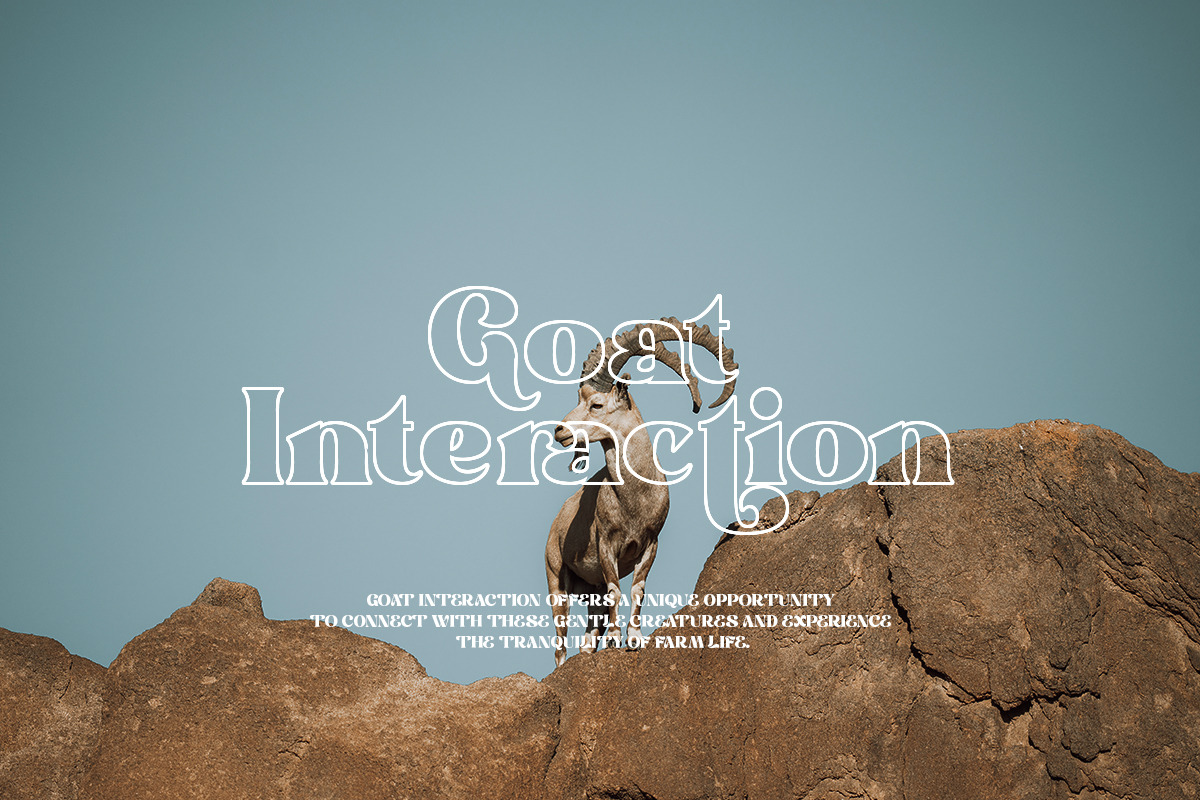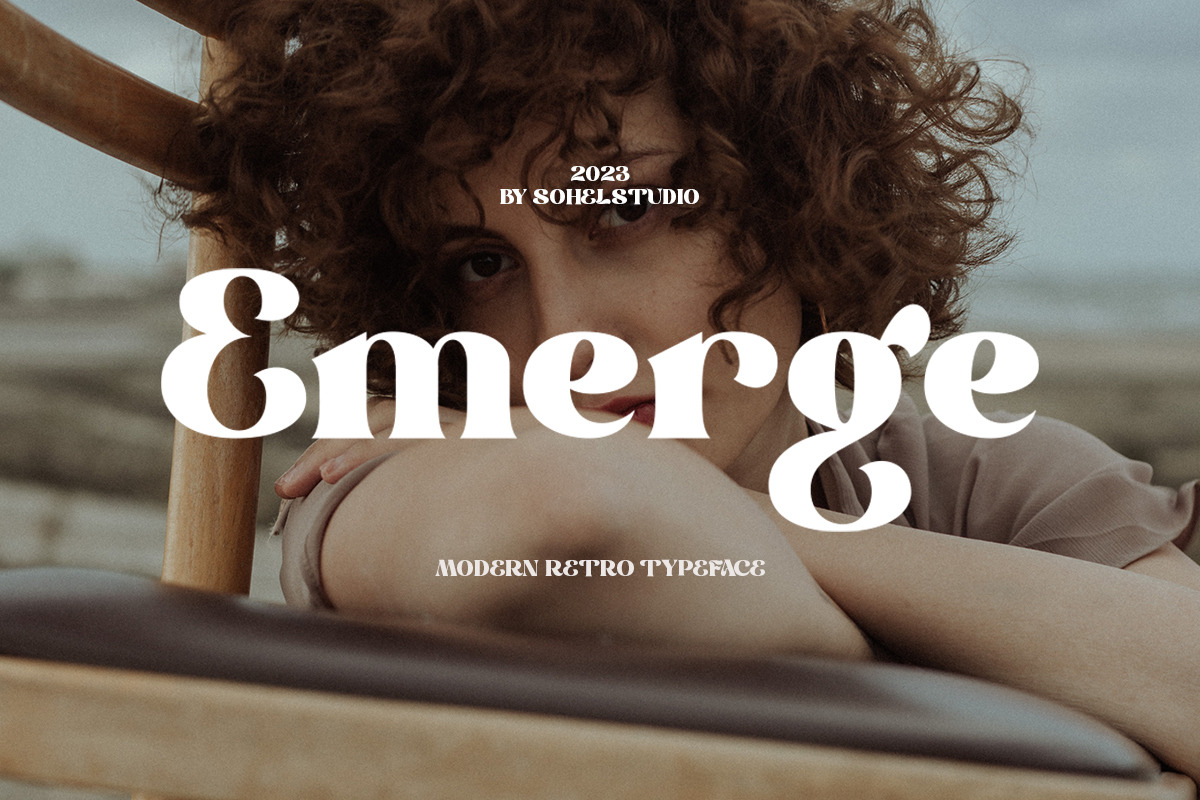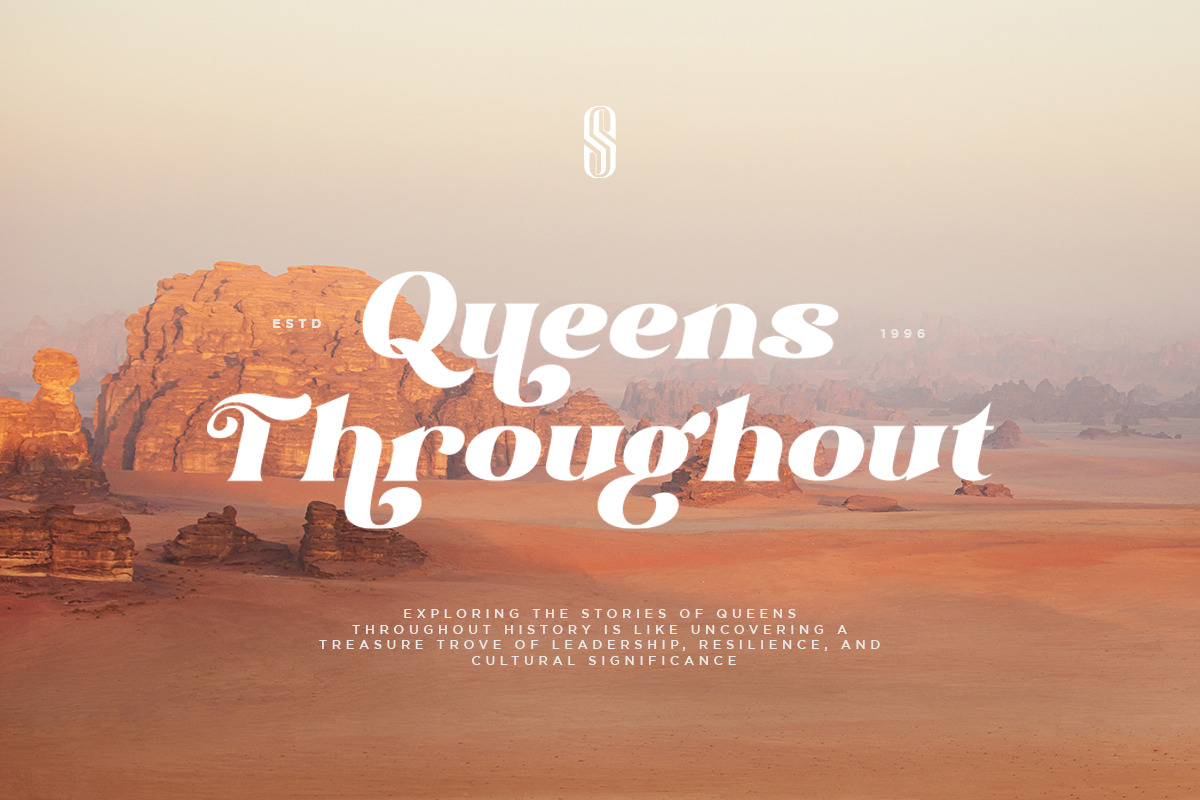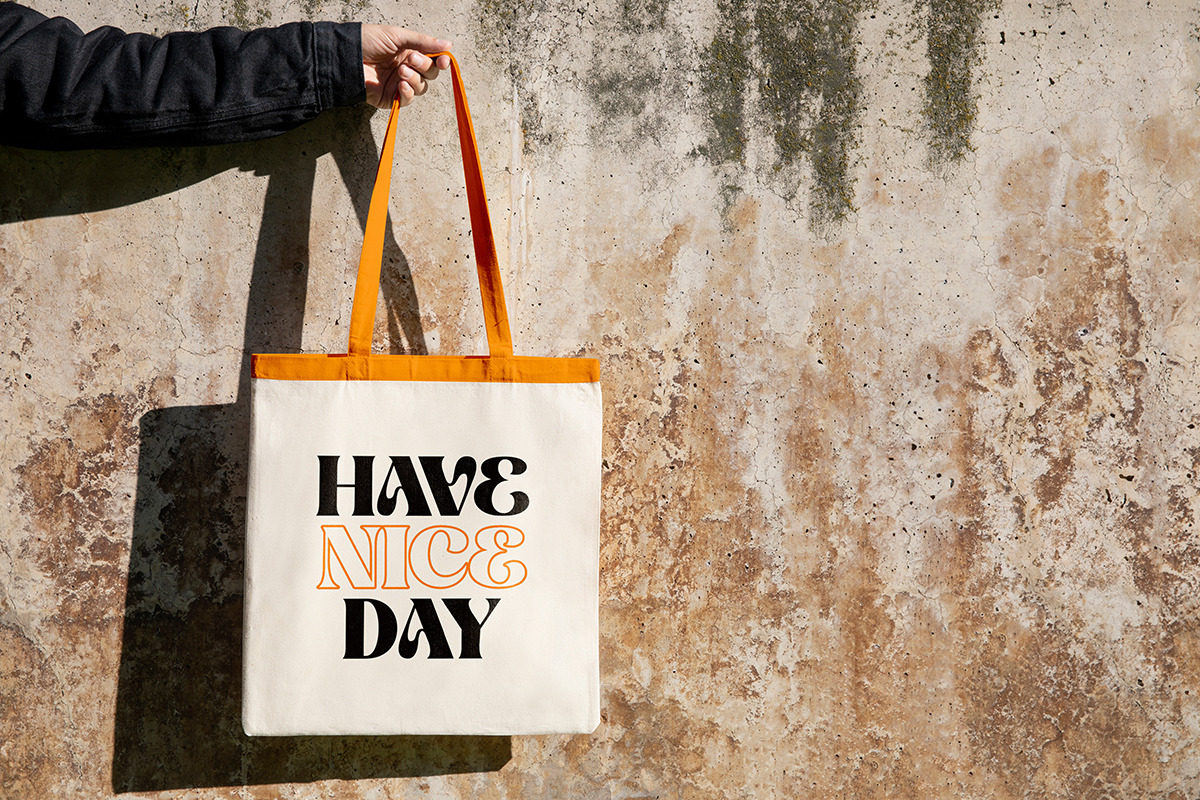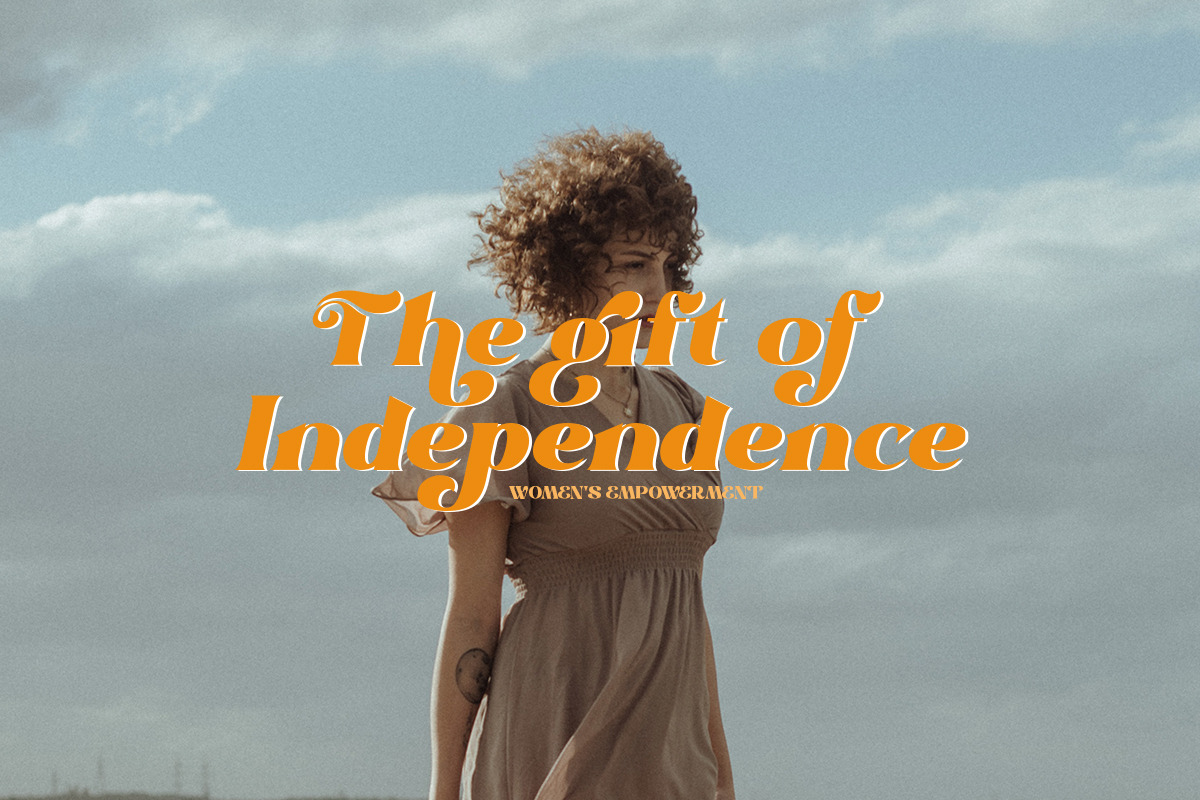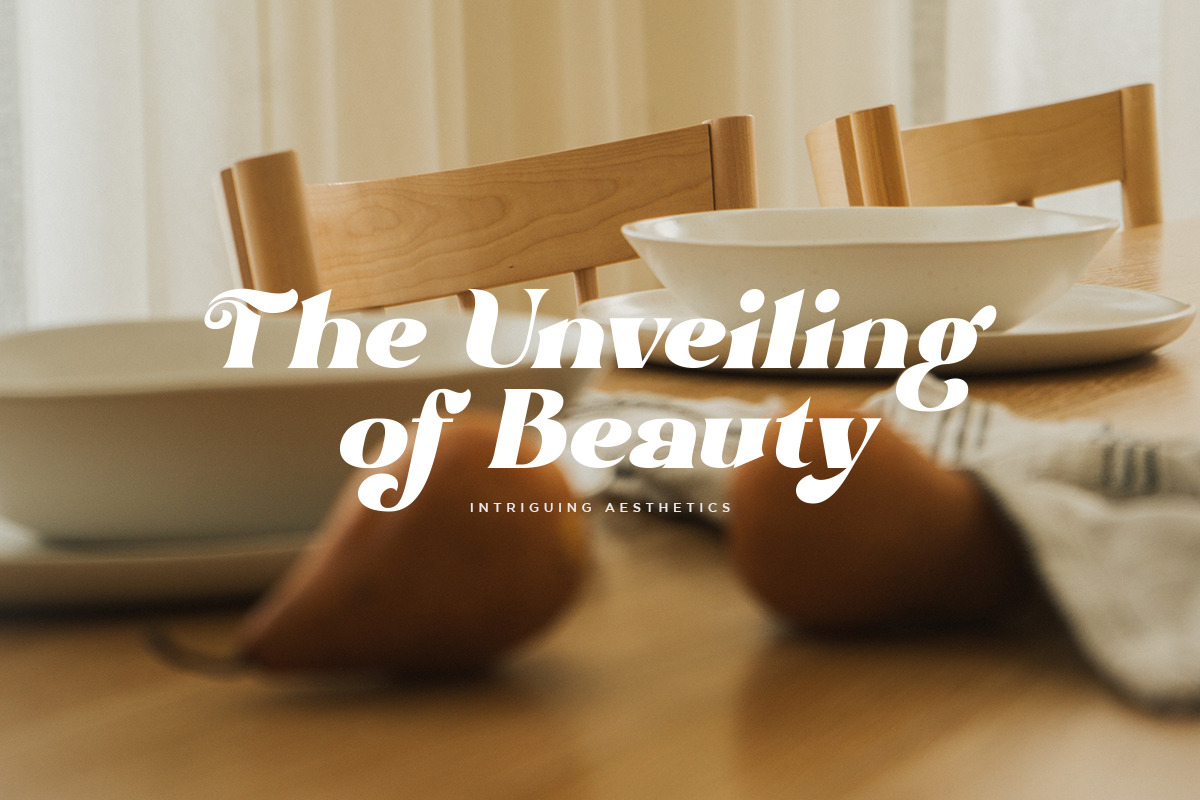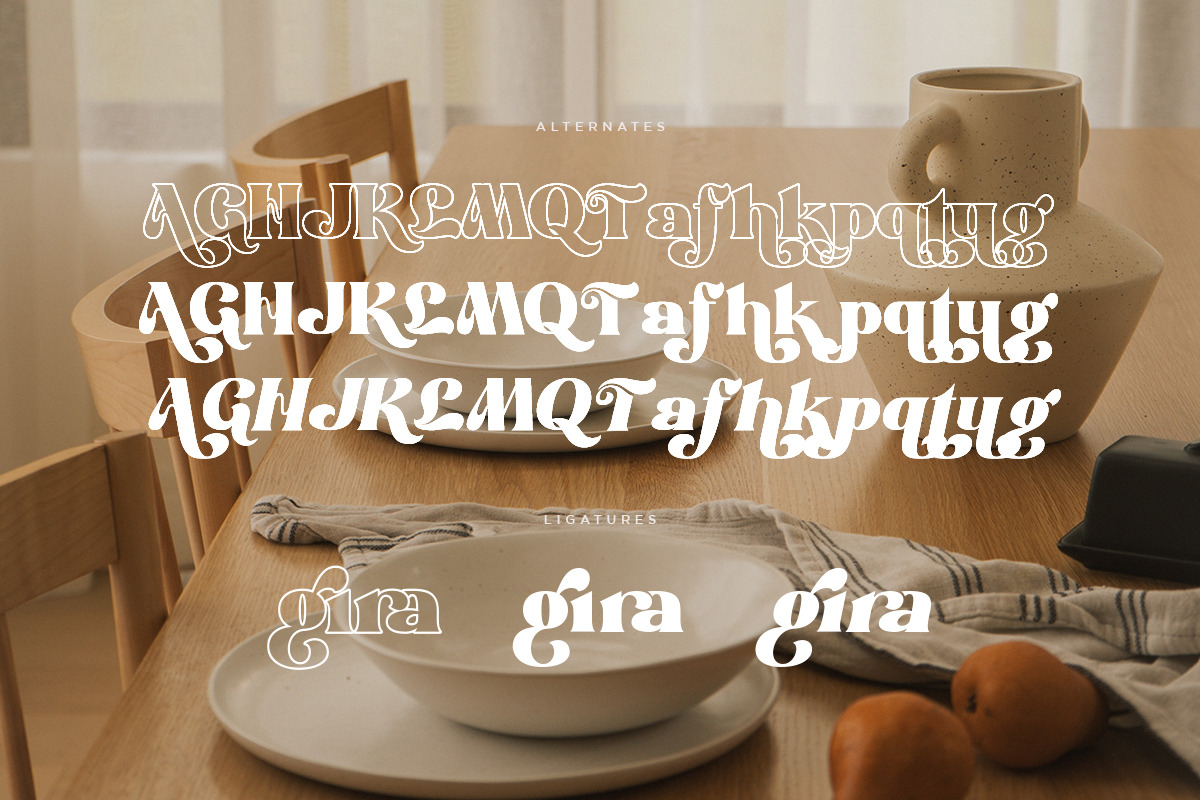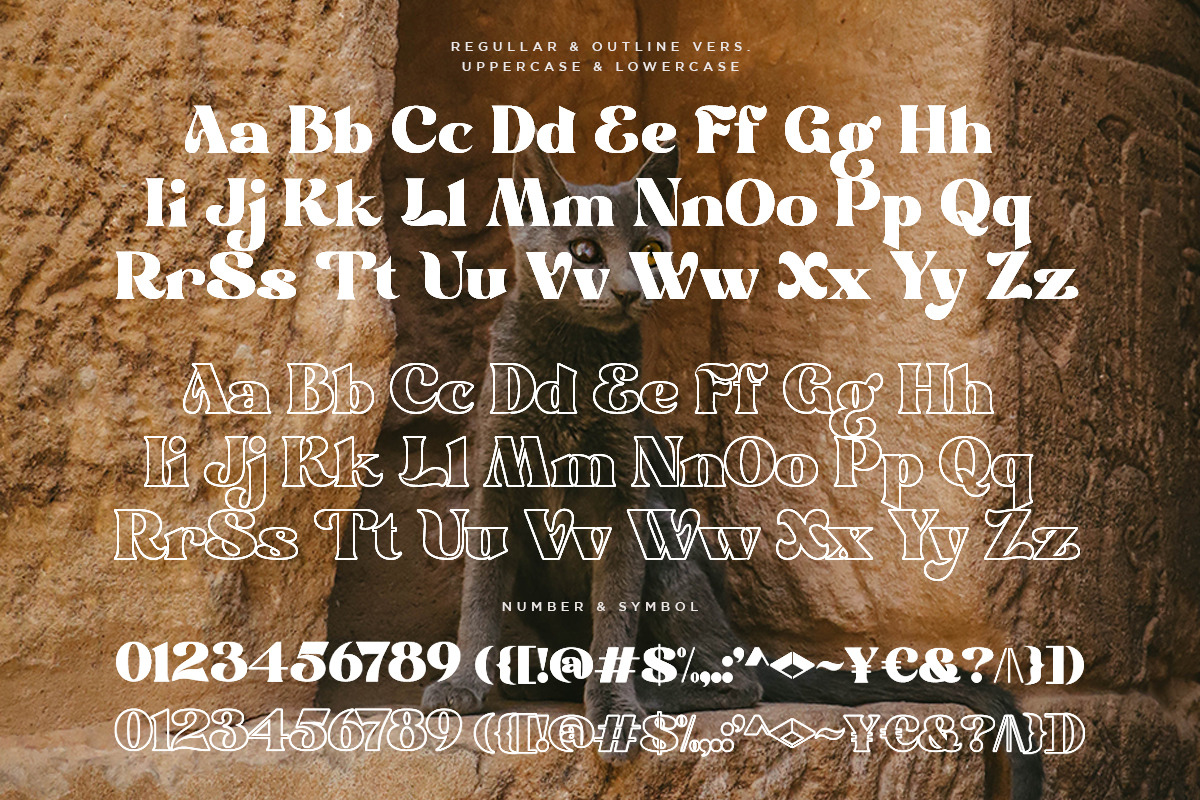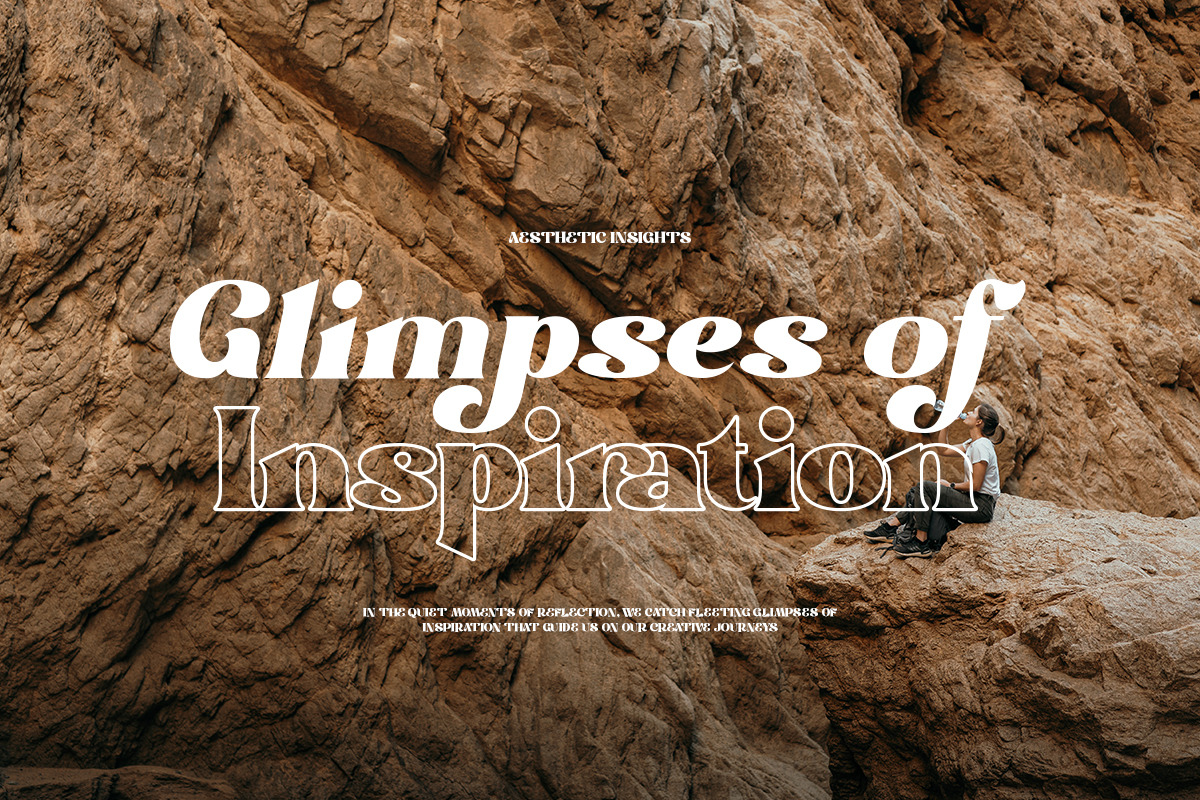
Emerge - Modern Poster Typeface
"The 'Emerge Font' is a captivating typeface with a unique and bold serif display style. Featuring distinctive thick lines, each letter exudes strength and firmness. This font combines classic serif elements with modern touches, creating a visually striking and bold appearance.
Emerge Font evokes elegance while maintaining a modern edge, making it ideal for graphic design projects, posters, and layouts that require unforgettable visual appeal."
Emerge Features:
- Uppercase And Lowercase
- Alternates And Ligatures